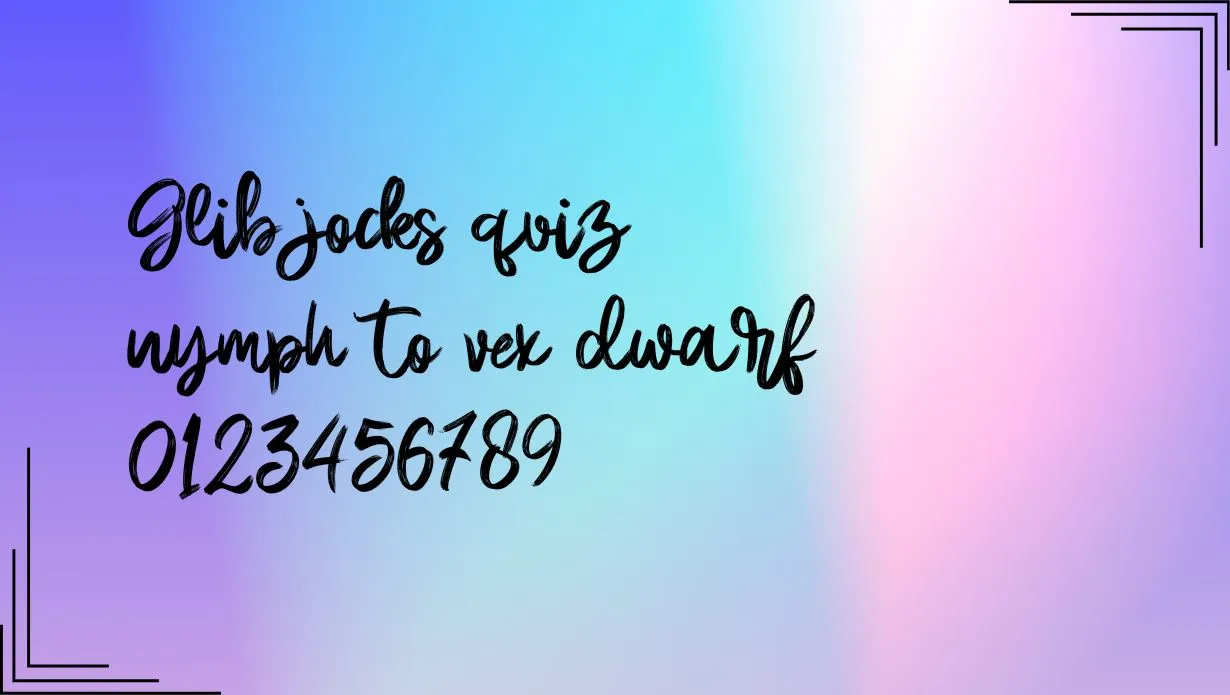
Bobby Anderson is a stylish modern script font designed by Letterara. This font has a striking and unique look that can be used to make any design stand out. Incredibly versatile, this font fits a wide pool of designs, elevating them to the highest levels.
Add this font to your favorite creative ideas and notice how it makes them come alive! This font is PUA encoded which means you can access all of the glyphs.
Who Used Bobby Anderson Font?
The font can be used to make elegant logo designs, advertisements, magazines, poster designs, and banners. It is a perfect choice for many applications such as Adobe InDesign, Canva, Photoshop, Corel Draw, Photoshop Illustrator, and many more.
This font is perfect for wedding invitation cards, luxury logos, branding purposes, the fashion industry, cosmetic branding, women’s magazines, social media posts, advertisements, product packaging, product designs, labels, watermarks, photography, screen designing, and many more.
To make the design attractive many of the designers use this font with its alternates like syncro script font which looks perfect and very similar to this font and makes a cool combination with it.
Many social media influencers use this font in their posts because this font looks amazing on posts and it also attracts the audience and gives an appealing look.
Bobby Anderson Font Family Appearance
| Name | Bobby Anderson Font |
| Designer | Letterara |
| Style | Script |
Is Bobby Anderson Font good for display?
Yes, this font is a perfect choice for displays such as brand advertisements, websites, logos, paintings, etc.
What is Bobby Anderson Font Designer’s Name?
This font was designed by a famous studio called Letterara.